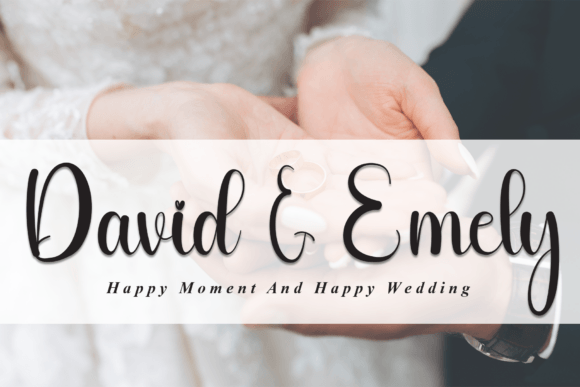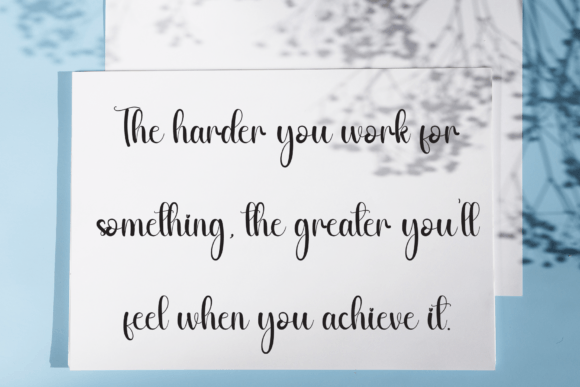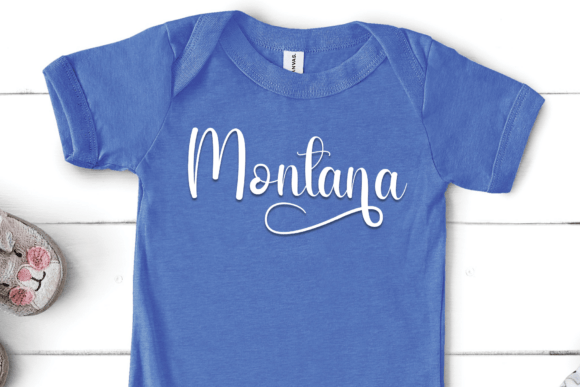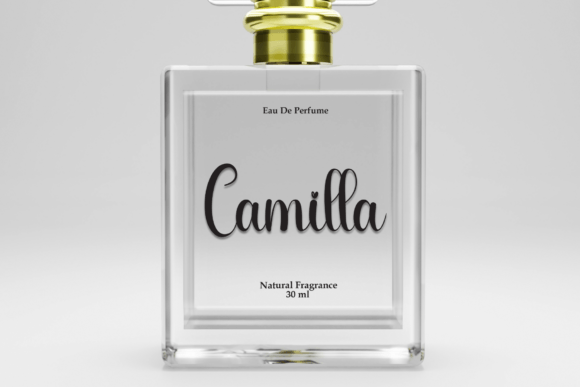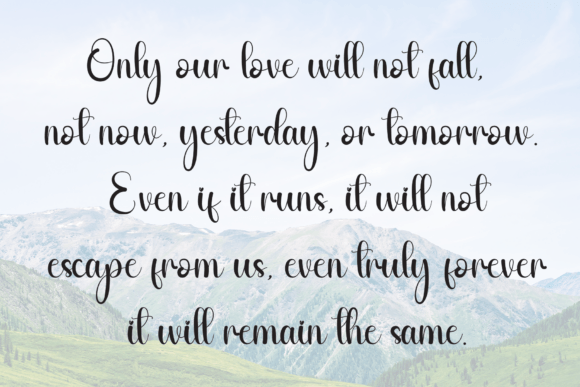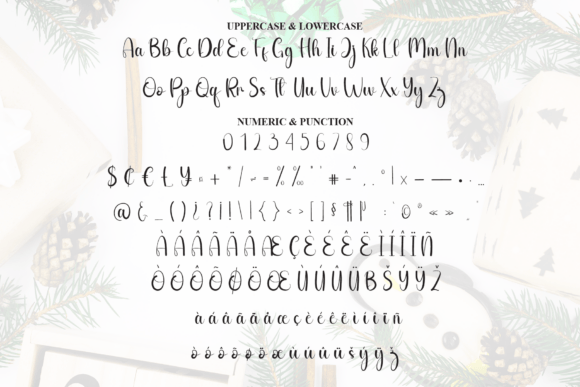
Introducing December Font: Sweet Delight – The Perfect Handwritten Font for Your Creative Projects
Are you looking for a font that can add a touch of whimsy and playfulness to your designs? Look no further than Sweet Delight, a charming handwritten font that’s perfect for a variety of creative projects. In this article, we’ll dive into the world of December Font’s Sweet Delight and explore its features, uses, and benefits.
What is Sweet Delight?
Sweet Delight is a beautifully crafted handwritten font that’s designed to bring a sense of joy and delight to your designs. With its soft and luscious flair, this font is perfect for adding a touch of personality to your creative projects. Whether you’re working on a wedding invitation, greeting card, or any other design endeavor, Sweet Delight is sure to make your project stand out.
Features of Sweet Delight
Sweet Delight is a unique and charming font that offers a range of features that make it perfect for a variety of design projects. Some of its key features include:
- Whimsical design: Sweet Delight has a playful and whimsical design that’s perfect for adding a touch of fun to your designs.
- Soft and luscious flair: The font’s soft and luscious flair gives it a delicate and feminine touch that’s perfect for wedding invitations, greeting cards, and other designs.
- Handwritten style: Sweet Delight is a handwritten font that’s designed to look like it was written with love and care.
- Easy to read: Despite its playful design, Sweet Delight is easy to read and understand, making it perfect for a variety of design projects.
Uses of Sweet Delight
Sweet Delight is a versatile font that can be used for a variety of design projects, including:
- Wedding invitations: Sweet Delight is perfect for wedding invitations, as it adds a touch of romance and whimsy to your design.
- Greeting cards: The font’s playful design makes it perfect for greeting cards, whether you’re creating a birthday card, Christmas card, or any other type of card.
- Social media graphics: Sweet Delight can be used to create eye-catching social media graphics that are sure to grab the attention of your followers.
- Branding and packaging: The font’s unique design makes it perfect for branding and packaging projects, whether you’re creating a logo, label, or packaging design.
Benefits of Using Sweet Delight
There are many benefits to using Sweet Delight in your design projects, including:
- Adds a touch of personality: Sweet Delight adds a touch of personality to your designs, making them stand out from the crowd.
- Creates a emotional connection: The font’s playful design creates an emotional connection with your audience, making them more likely to engage with your design.
- Versatile: Sweet Delight is a versatile font that can be used for a variety of design projects, making it a great addition to your font library.
- Easily readable: The font’s easy readability makes it perfect for designs that require a clear and concise message.
Tips for Using Sweet Delight
Here are some tips for using Sweet Delight in your design projects:
- Use it for headings and titles: Sweet Delight is perfect for headings and titles, as it adds a touch of personality and whimsy to your design.
- Pair it with other fonts: Sweet Delight can be paired with other fonts to create a unique and eye-catching design.
- Experiment with colors: The font’s playful design makes it perfect for experimenting with different colors and color combinations.
- Use it for digital and print designs: Sweet Delight can be used for both digital and print designs, making it a great addition to your font library.
Sweet Delight is a charming handwritten font that’s perfect for adding a touch of whimsy and playfulness to your designs. With its soft and luscious flair, this font is perfect for wedding invitations, greeting cards, and any other design project that requires a touch of personality. Whether you’re a designer, crafter, or DIY enthusiast, Sweet Delight is sure to become a favorite in your font library.